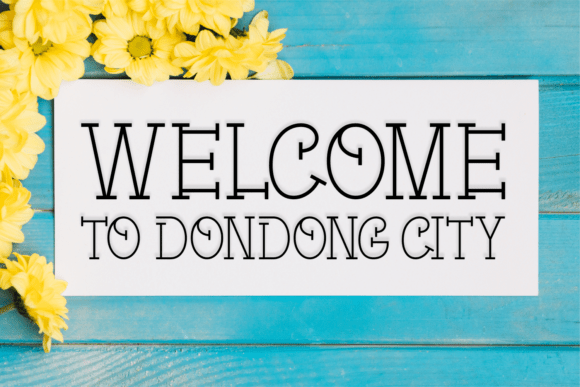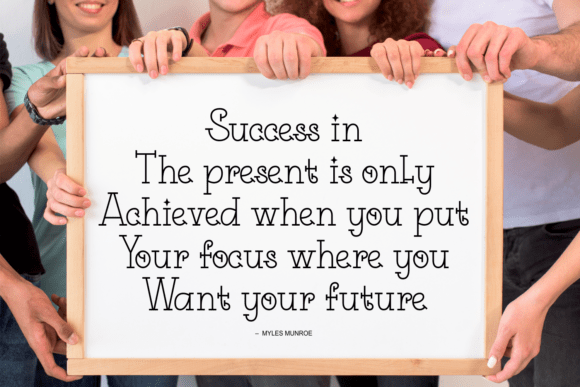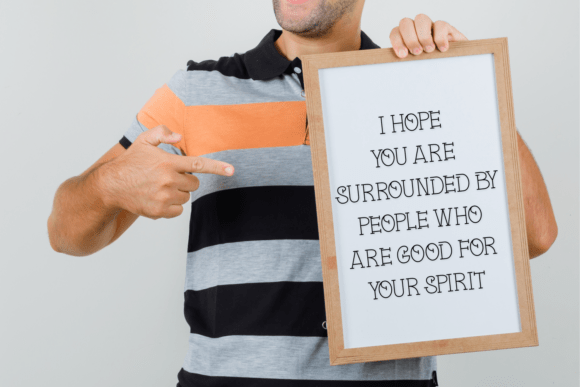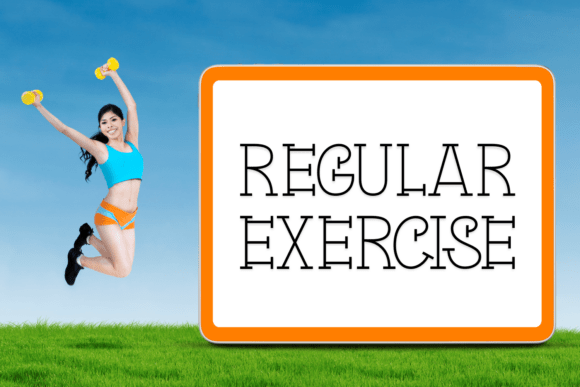
Find Your Font, Find Your Happiness
Have you ever sat at your desk, staring blankly at a blank page, wondering how to bring a little more joy to your design? We’ve all been there. But what if the key to unlocking your creativity lay in the simplest of things – a font?
That’s where the Building Happiness Font comes in – a comprehensive range of typefaces designed to add a dash of whimsy and personality to your designs. With clean lines and accented marks, this font is perfect for multilingual contexts, and its playful style is sure to bring a smile to the faces of designers and non-designers alike.
Building Happiness Font Key Features
- Font Family: Building Happiness Font is a unique, high-quality font designed to evoke feelings of happiness and positivity. It includes multiple font styles and weights, making it versatile for various design projects.
- Size: The font includes a range of font sizes, from 12 to 72 points, making it suitable for various design applications, including digital and print media.
- Resolution: Optimized for high-resolution displays, Building Happiness Font ensures crisp and clear text rendering on high-definition screens.
- Unique Characteristics: The font features a custom-designed letterform with subtle rounded edges, creating a friendly and approachable feel. The unique characteristics of the font make it stand out in design projects.
- Character Count: The font includes a comprehensive set of characters, including Latin, Cyrillic, and Greek alphabets, as well as a range of punctuation marks and symbols.
Building Happiness Font Review
After diving into the “Building Happiness Font”, I have mixed feelings about this typeface. Let’s break it down.
- Expressive and energetic feel: The font has a unique charm that captures the essence of happiness, which is perfect for projects focusing on positivity and joy.
- Customizable: It comes in various weights, from Light to Bold, allowing for a wide range of design possibilities.
- Legibility: The font is generally easy to read, making it suitable for body text and headlines.
- Limited use cases: The font might not be the best choice for formal or professional projects due to its playful and casual nature.
- Not ideal for small text: The font’s design makes it difficult to read in smaller sizes, which could be a challenge in certain design scenarios.
- Not suitable for all languages: The font may not support all languages, which could limit its use in multilingual projects.
The “Building Happiness Font” is a fun and expressive typeface that can add a unique touch to your designs. While it has its limitations, it’s perfect for projects that require a happy and energetic vibe. Just be mindful of its limitations and use it wisely.
Use the Building Happiness Font in headings and titles to create a warm and inviting atmosphere.
Combine the font with bright colors and playful graphics to create a fun and energetic design.
Use the font in conjunction with other creative fonts to add depth and visual interest to your design.
Children’s book illustrations and design
Food and beverage branding and packaging